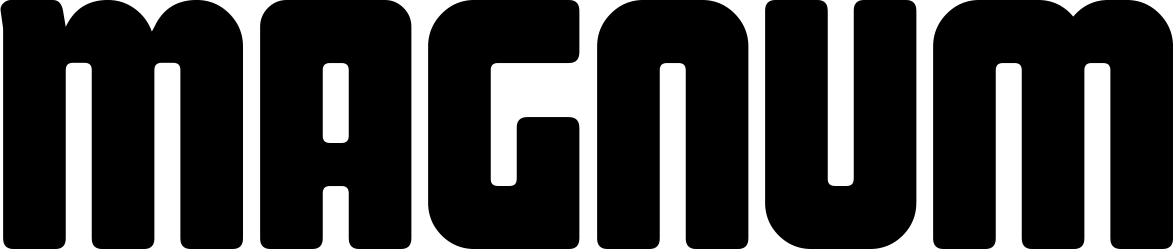
Magnum Font
Magnum is a retro-style groovy font that is profound and adds confidence to your typography. The proactive clumpy, sans serif characters, are rounded to give an odd and playful feel. You will find this font brilliant for gun shops, banners, posters, and movie titles, and not containing lower case letters is not an issue at all.